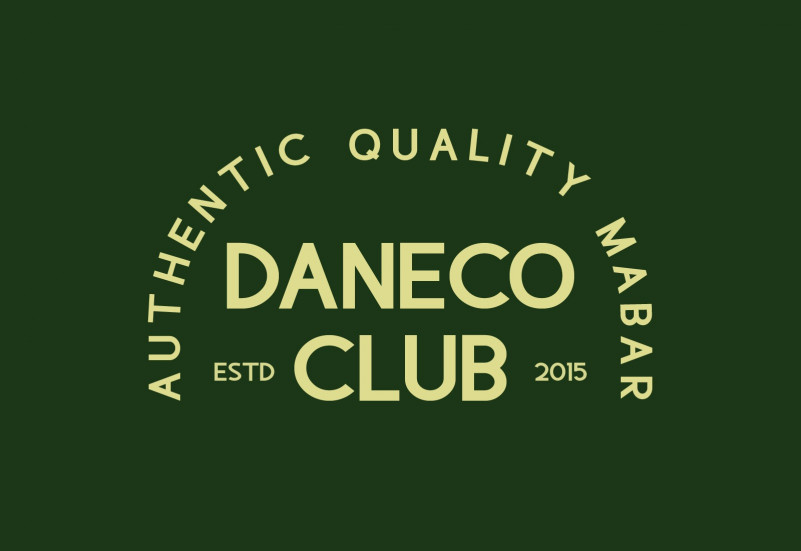
Lembaten Sans Serif Font
This Font is a simple and classic sans serif. it inspired by the 90s poster & magazine advertising. It can easily be matched to an incredibly large set of projects, so add it to your creative ideas and notice how it makes them stand out!